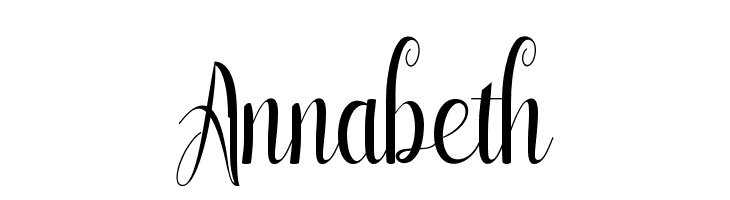
A lively, calligraphic font with a modern, handwritten style.
A dynamic calligraphic font with elegant, flowing strokes.
A bold, handwritten font with a playful and dynamic style.
A lively, artistic font with fluid, dynamic strokes mimicking natural handwriting.